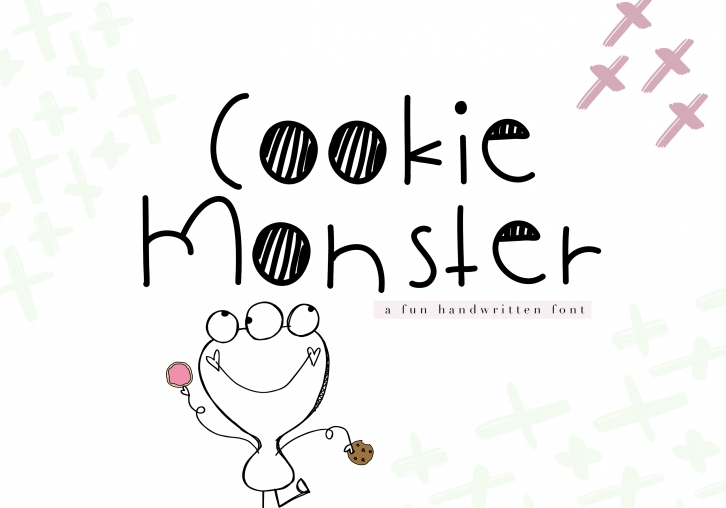
Cookie Monster - A Cute Handwritten Font Download
Cookie Monster is a beautiful font that was designed by KA Designs. It's a great choice for designers and creatives who need such a font. It was released on May 27, 2018 and the file size is 17.8 MB. Cookie Monster may give a more youthful, expressive and casual look to your project. It is a very beautiful, refined, elegant, and high-quality font.